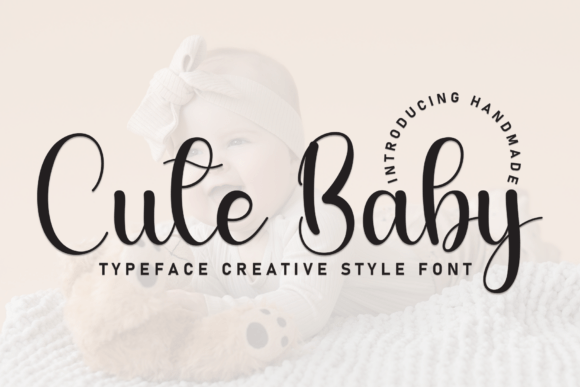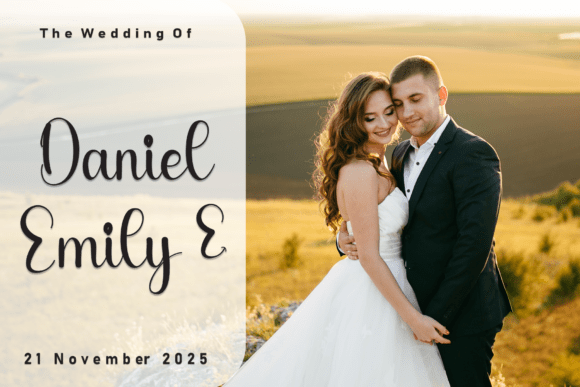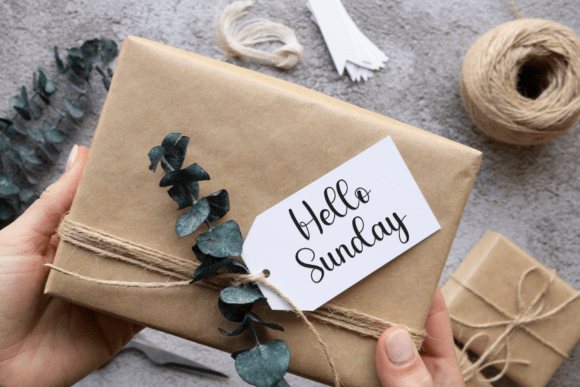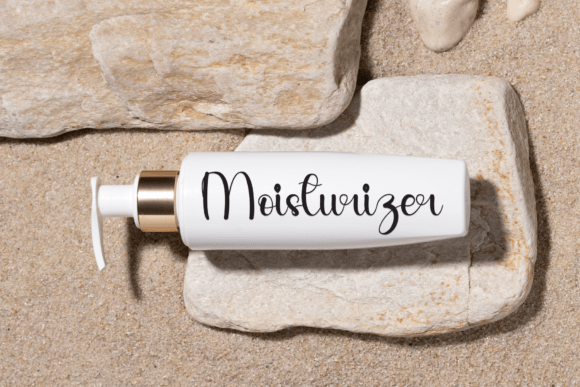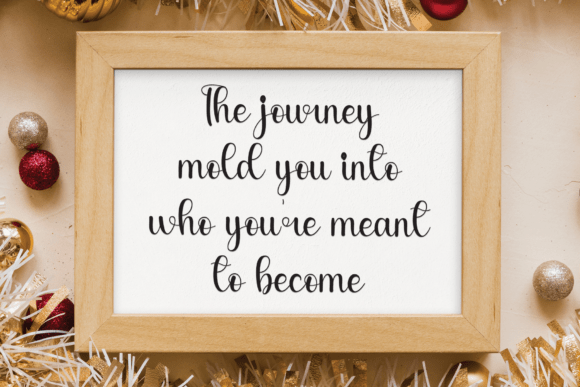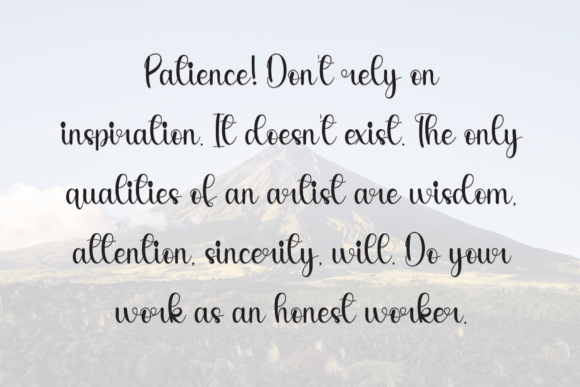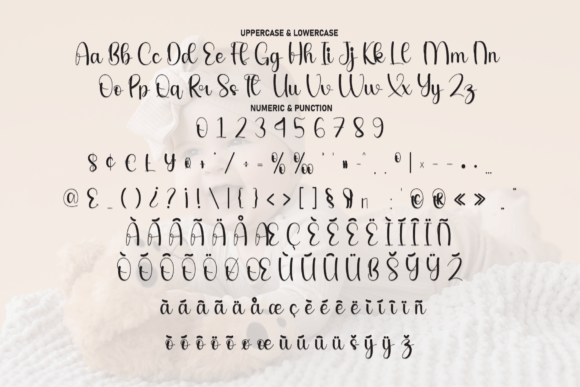
A Labor of Love: Discovering the Magic of Cute Baby Font
Have you ever been brainstorming ideas for a special project, only to find yourself stuck in a sea of generic fonts? The spark of creativity is there, but it’s just out of reach. That’s where the enchanting world of typography comes in – a world where a single font can transform an entire design.
Meet Cute Baby Font, a handmade display typeface that embodies the perfect blend of charm and whimsy. This delightful font is not just a pretty face; it’s a tool that can elevate your designs to new heights. Whether you’re crafting a bespoke wedding invitation or a heartfelt birthday card, Cute Baby Font adds a touch of warmth and personality that’s sure to captivate your audience.
As a designer, you know that the right font can make all the difference. Cute Baby Font is a game-changer, offering a level of sophistication and playfulness that’s hard to find in other fonts. Its unique charm and character make it a valuable asset in any designer’s toolkit, and a must-have for anyone looking to add a little extra magic to their designs.
Cute Baby Font Key Features
- Font Style: A playful, cursive font with rounded edges and endearing features, perfect for designs related to babies and children.
- Font Size: The font size varies, but it is typically designed for use at 24-48 points for optimal readability and visual appeal.
- Unique Characteristics: The font features a range of special characters, including baby-themed symbols and icons, making it a versatile choice for designers.
Cute Baby Font Review
I recently had the chance to play around with the Cute Baby Font and here’s my honest take.
- The font is indeed super cute and perfect for projects that need a playful touch.
- The characters are well-designed, with adorable details that make the font feel whimsical.
- The font is well-suited for titles, headings, and short blocks of text, where its cuteness can shine.
- It’s a great choice for designers who want to add a touch of sweetness to their projects without overwhelming the viewer.
- The font may be too cutesy for projects that require a more serious or professional tone.
- The font’s playfulness may not be suitable for projects with complex or lengthy text.
- The font’s cuteness may be overwhelming if used extensively throughout the project.
Overall, the Cute Baby Font is a great choice for designers who want to add a touch of whimsy to their projects. While it may have some limitations, its cuteness and charm make it a great option for the right type of project.
Tips for Getting the Most Out of Cute Baby Font
Use the Cute Baby Font for creating baby-themed designs, such as nursery decor, baby shower invitations, and children’s products. Experiment with different font sizes and colors to create a playful and whimsical look.
The Cute Baby Font is ideal for:
- Baby shower invitations
- Nursery decor and wall art
- Children’s product packaging and labels
- Baby-themed social media graphics
Alternatives to Cute Baby Font
Pacifico is a beautiful, elegant script font that is perfect for designs that require a touch of sophistication. It works well for wedding invitations, greeting cards, and other special occasions. Compared to Cute Baby Font, Pacifico is more refined and less playful, making it suitable for a wider range of designs.
Great Vibes is a fun, cursive font that is ideal for designs that need a bit of whimsy. It’s great for social media posts, advertising campaigns, and other projects that require a playful tone. Unlike Cute Baby Font, Great Vibes has a more fluid, handwritten feel that makes it perfect for conveying a sense of excitement and energy.
Q: What is the recommended font size for using Cute Baby Font?
The recommended font size for using Cute Baby Font is between 12pt and 24pt. This range provides optimal legibility and readability for most designs. However, you can experiment with different font sizes to achieve the desired effect for your project.